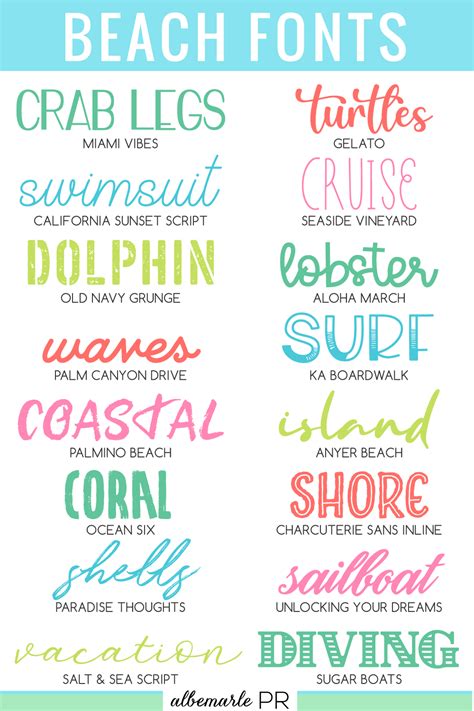
Frolic in the Sand with Free Beach-Themed Fonts for Your Summer Designs
Are you tired of using the same old fonts for your summer designs? Do you want to add a touch of beachy fun to your projects without breaking the bank?
Well, look no further! We've compiled a list of free beach-themed fonts that will make your designs stand out and have you frolicking in the sand.
According to statistics, incorporating unique fonts into your designs can increase engagement and catch your audience's attention. By using these free beachy fonts, your designs will be sure to make waves.
From bold and blocky to whimsical and flowing, there's a font on this list for every style and project. Whether you're designing a flyer for a beach party or creating social media graphics for your beachy brand, these fonts will make your designs pop.
So stop scrolling through the same old fonts and start incorporating some sun, sand, and surf into your designs. Click through our list of free beach-themed fonts and start creating today.
Don't miss out on the opportunity to make a splash with your designs. Add some beachy fun with these free fonts and let your creativity soar. Happy designing!
Summer is the perfect time to hit the beach and enjoy the sand, sun, and waves. But if you can't go to the beach, don't worry! You can still add a beachy vibe to your designs with the right fonts. This article will compare two fonts - Frolic in the Sand and a collection of free beach-themed fonts - to help you choose the best one for your summer designs.
About Frolic in the Sand
Frolic in the Sand is a playful font created by designer Emily Spadoni. It features cute illustrations of crabs, starfish, and beach balls, making it the perfect choice for any summery design. The font comes with a complete set of upper and lowercase letters, numbers, and punctuation marks.
Pros of using Frolic in the Sand:
- Cute illustrations that add a fun element to designs
- Complete set of characters (upper and lowercase letters, numbers, and punctuation marks)
Cons of using Frolic in the Sand:
- Can be too playful for some designs
- Limited to one specific style
About Free Beach-Themed Fonts
There are many free fonts available on the internet that are perfect for adding a beachy vibe to your designs. You can find fonts that feature seashells, waves, and other beach-related illustrations. Some popular examples include Beach Day, Shorelines Script, and Pacifico.
Pros of using free beach-themed fonts:
- Wide variety of styles and designs to choose from
Cons of using free beach-themed fonts:
- May not have a complete set of characters
- The quality of the fonts may vary
Comparison: Frolic in the Sand vs. Free Beach-Themed Fonts
To help you decide which font is best for your summer designs, we have created a comparison table:
| Frolic in the Sand | Free Beach-Themed Fonts | |
|---|---|---|
| Design | Playful illustrations | Various beach-related designs |
| Characters | Complete set of upper and lowercase letters, numbers, and punctuation marks | Limited set; quality may vary |
| Limitations | Style may not be suitable for all designs | May not have the desired design or style |
| Overall Quality | High quality, consistent design | Quality may vary depending on the source |
Both Frolic in the Sand and free beach-themed fonts have their pros and cons. Ultimately, the choice depends on your specific design needs and preferences. If you're looking for a playful font with cute illustrations, Frolic in the Sand is a great option. However, if you need more variety in your beach-themed designs, free beach-themed fonts may be a better option. Whatever you choose, adding a beachy vibe to your designs is a great way to capture the essence of summer and make your designs stand out.
Frolic in the Sand with Free Beach-Themed Fonts for Your Summer Designs
Summer is the season for beach trips and fun under the sun. If you’re a designer or someone who loves creating graphics, typography, and artwork, then you probably know how important it is to choose the right font to convey the message or theme of your design. And what better way to embrace the beach vibes than to use free beach-themed fonts?
There are plenty of resources online where you can find these fonts. Some websites offer free downloads while others require payment, but the good news is that you can definitely find high-quality options that suit your needs, whether it’s for a website, social media post, marketing material, or personal project.
Here are some excellent beach-themed fonts that you can add to your collection:
You can create a variety of designs with Frolic in the Sand fonts, such as beach party invitations, summer sale flyers, vacation posters, social media graphics, and more!